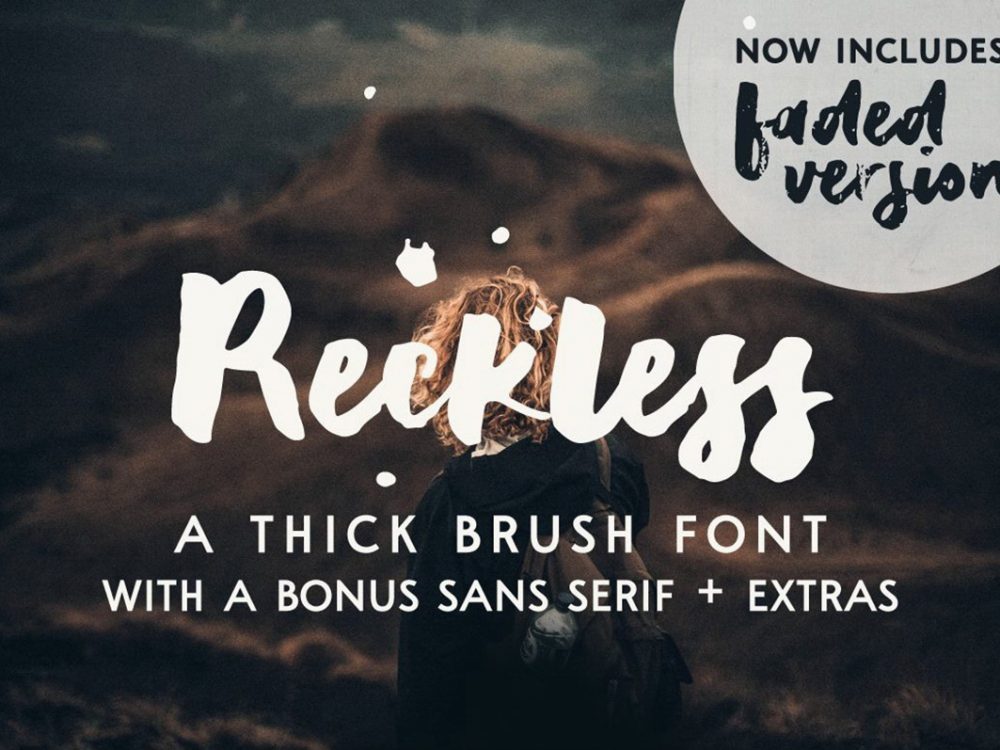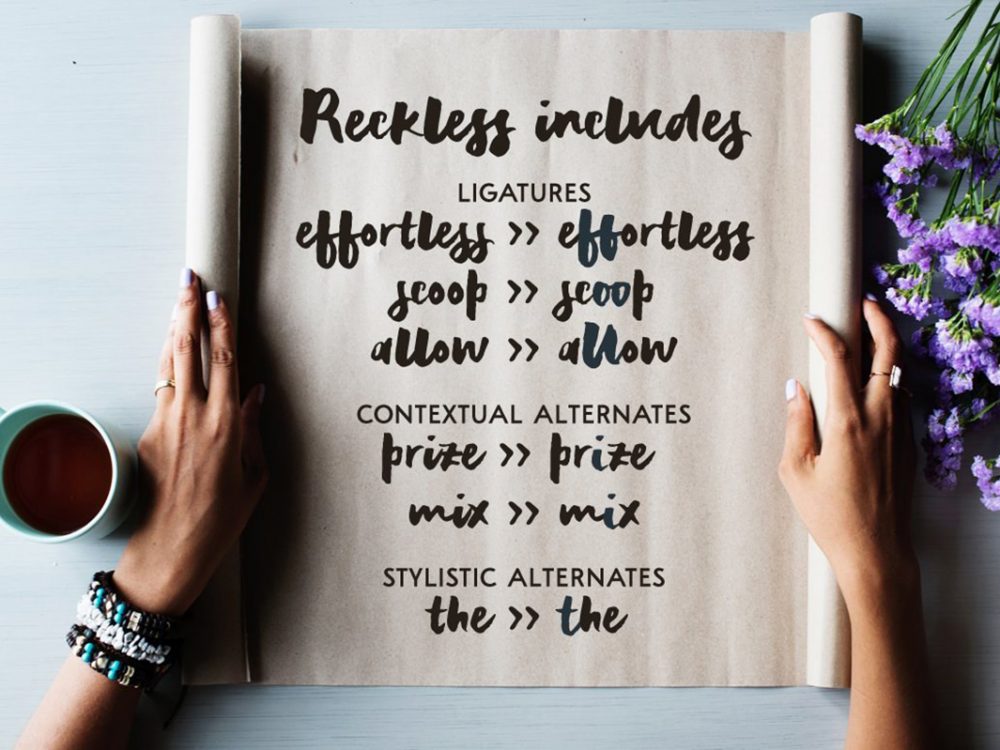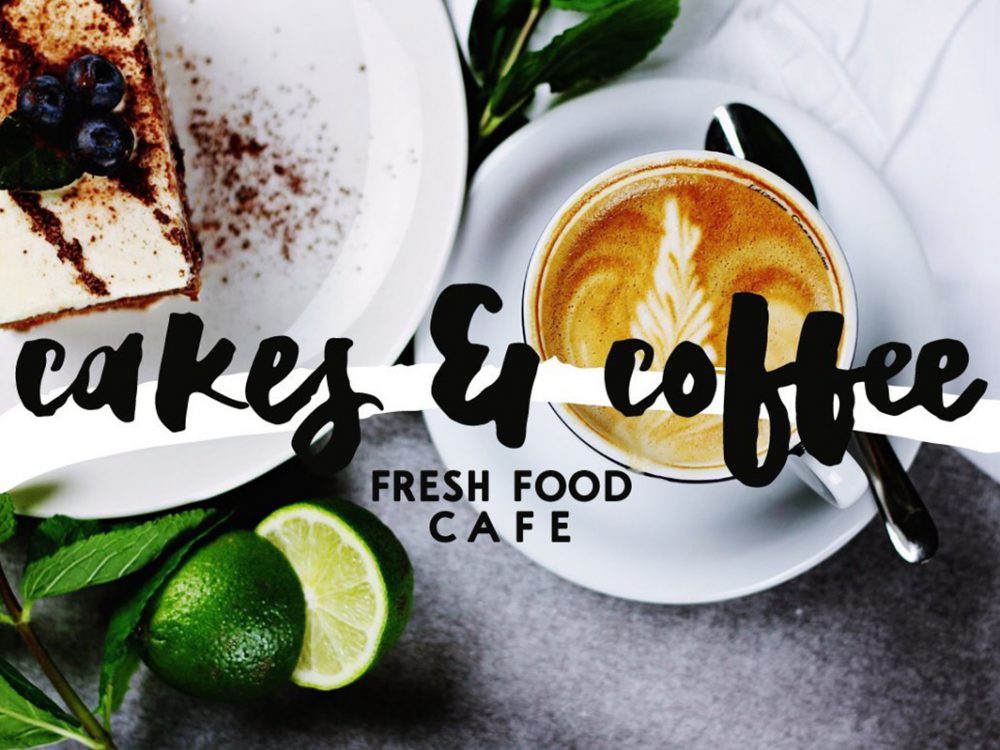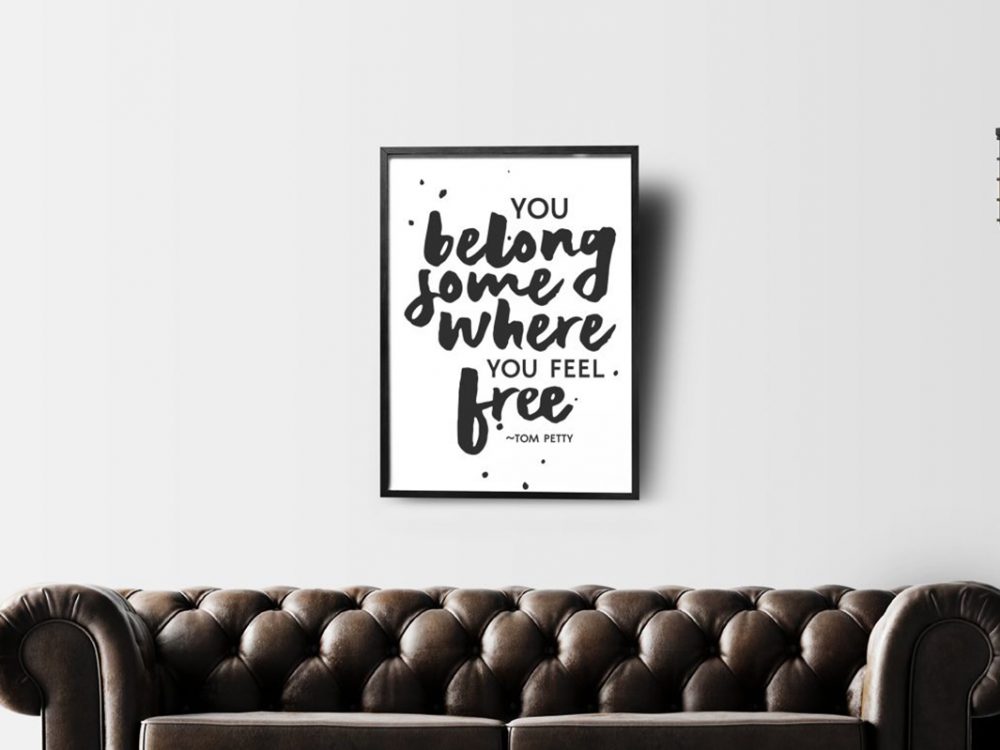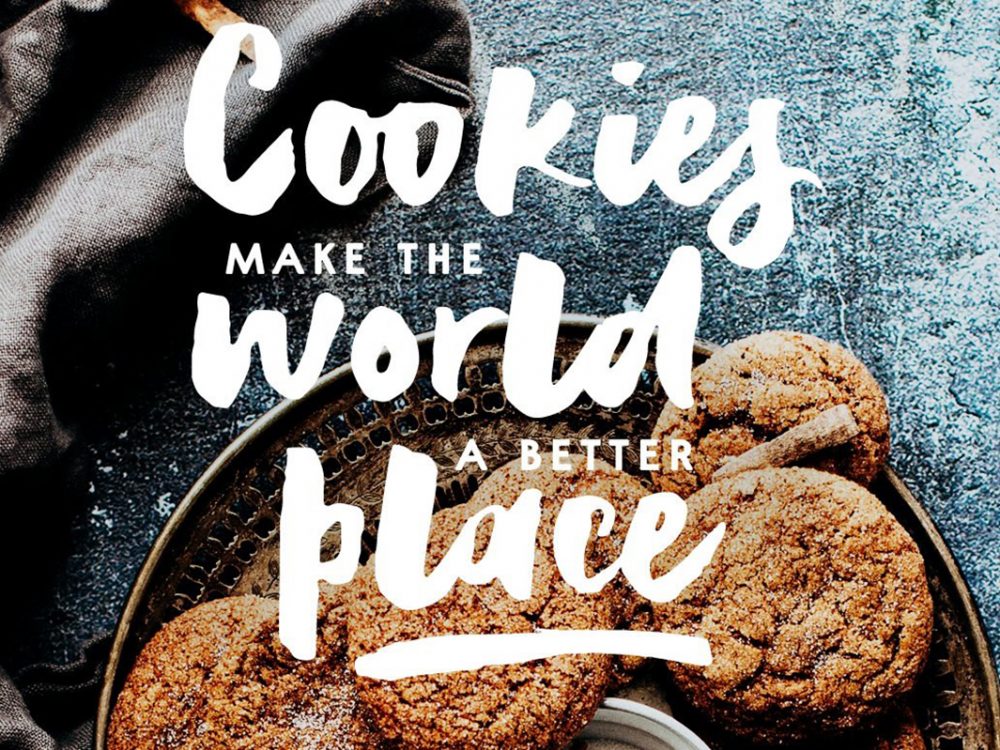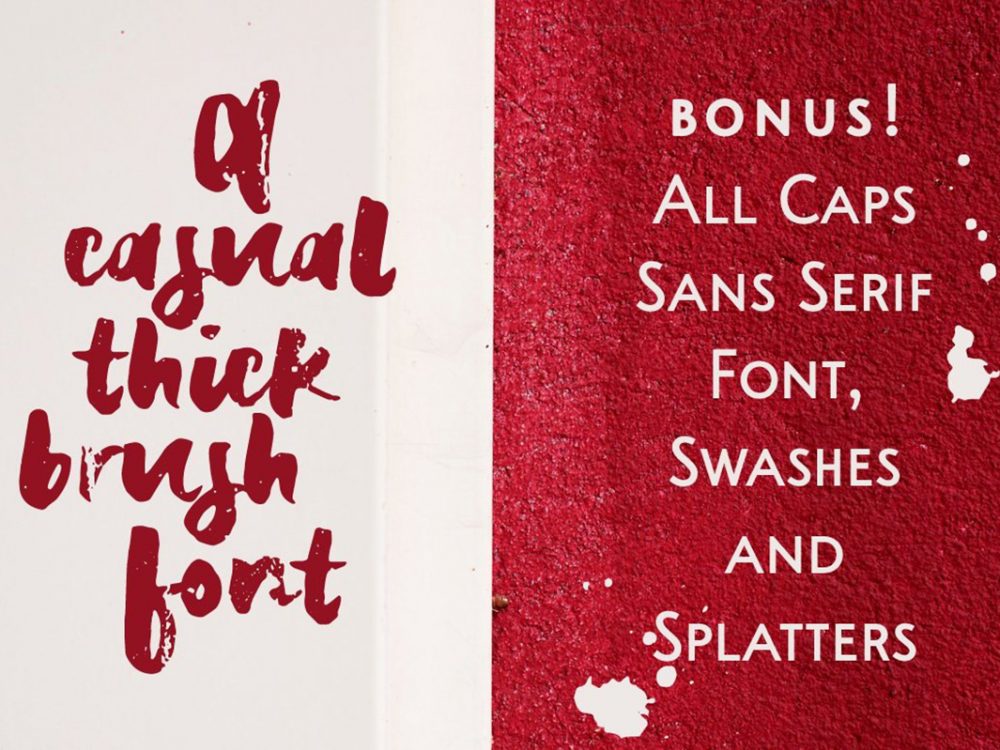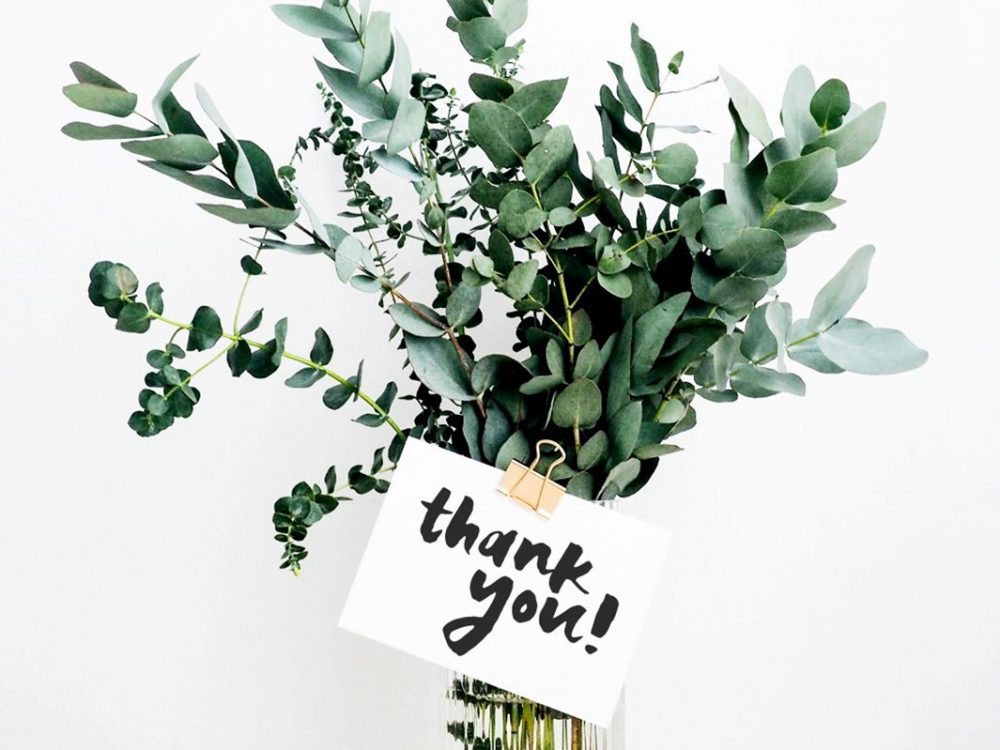
Reckless Brush Font
Reckless Brush Font is an interesting handwritten font that imitates writing with a thick brush. this font is very suitable for various design projects that require a bold script font. These can be posters, wedding invitations, cards, branding, flyers, prints, and more. If you want to use it for commercial work please buy the full version.